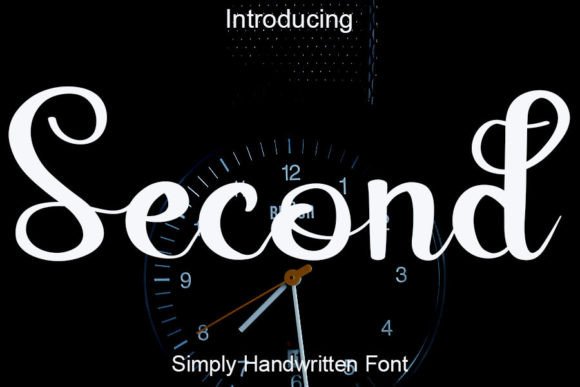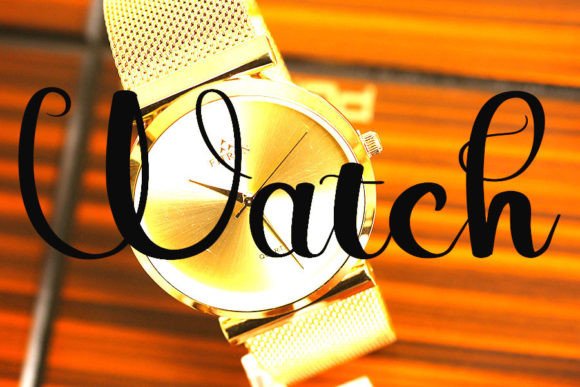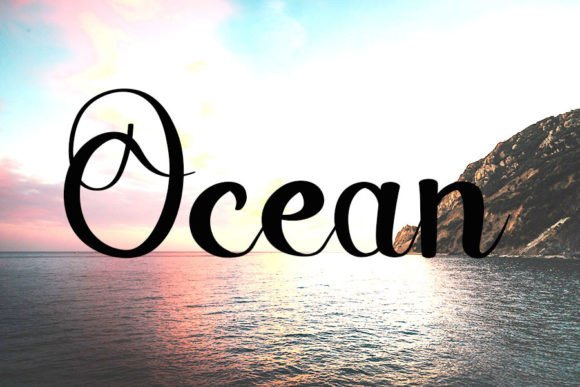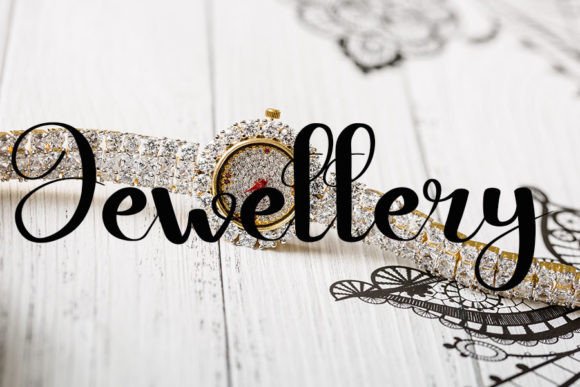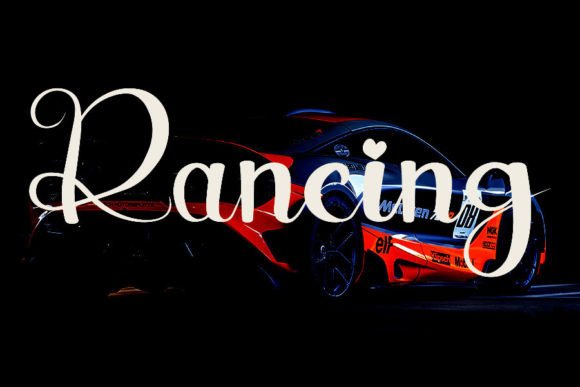
Second Font
About Second Font
Introducing Second, a neat and beautiful handwritten font that exudes elegance, making it the ideal choice for your favorite projects. Fall in love with its incredibly distinct and timeless style, and let it be the key element in creating spectacular designs!
With an innate elegance, Second brings a touch of refinement to your projects. Its neat and beautiful handwritten script adds a unique charm, making it versatile for a variety of creative endeavors. Whether you’re working on invitations, branding, or any other design project, Second seamlessly adapts to enhance the overall aesthetic.
This font’s distinct style sets it apart, giving your designs a sophisticated and memorable character. Its timeless appeal ensures that your projects remain relevant and visually appealing over time.
Imagine the impact of Second on your favorite projects, where every stroke communicates a sense of grace and style. Its versatility allows it to shine in various contexts, allowing you to create designs that captivate and inspire.
More than just a font, Second becomes an essential tool in your creative toolkit. Let its neat and beautiful handwritten elegance elevate your designs, making each project a showcase of style and sophistication. Fall in love with Second, and watch as it transforms your creative vision into something truly spectacular!